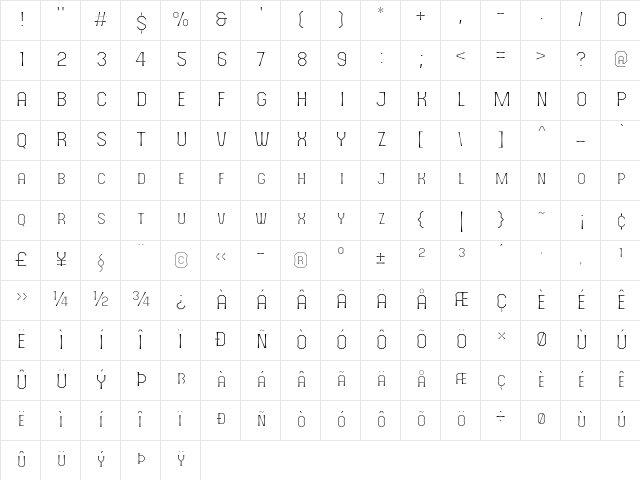
The October Two Light Regular
Design Context for The October Two Light Typeface
The October Two Light takes a measured approach to typography — its balanced proportions and neutral character make it a reliable workhorse for both digital and print work. The delicate stroke weight brings airiness and refinement to layouts.